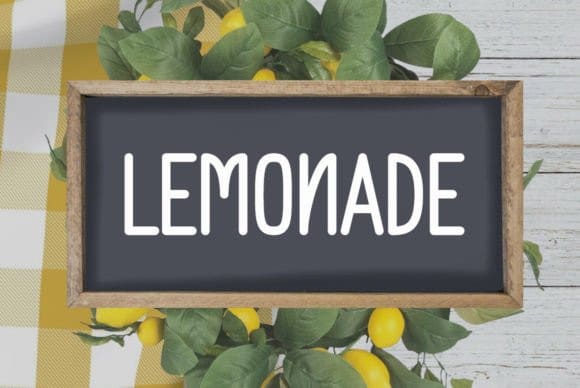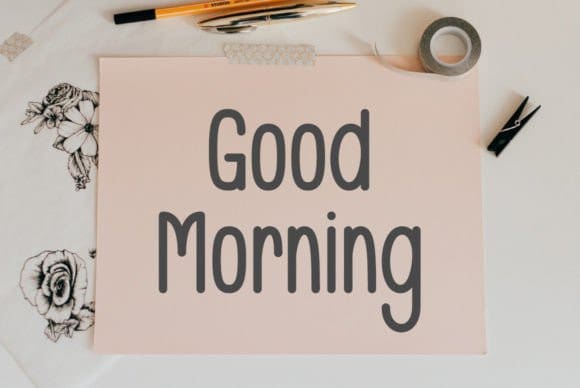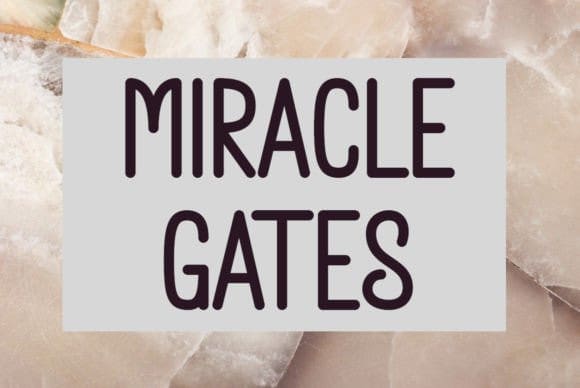
Miracle Gates Font
Miracle Gates Font is a thin-lettered script font. Fall for its ravishing style and use it to create gorgeous invitations, beautiful stationary art, eye-catching social media posts, and much more!